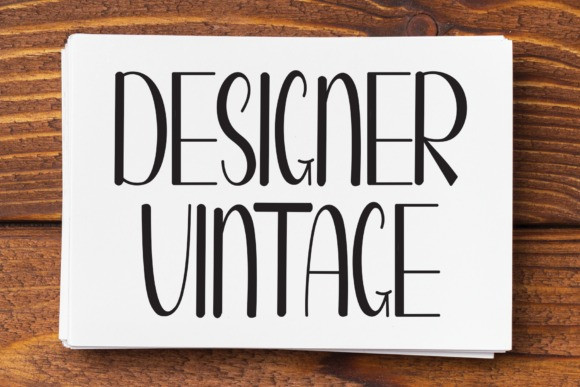
Designer Vintage Font
Designer Vintage Font is a sweet handwritten font crafted with great care to produce amazing results. This font is versatile and easy to use on all your creations!